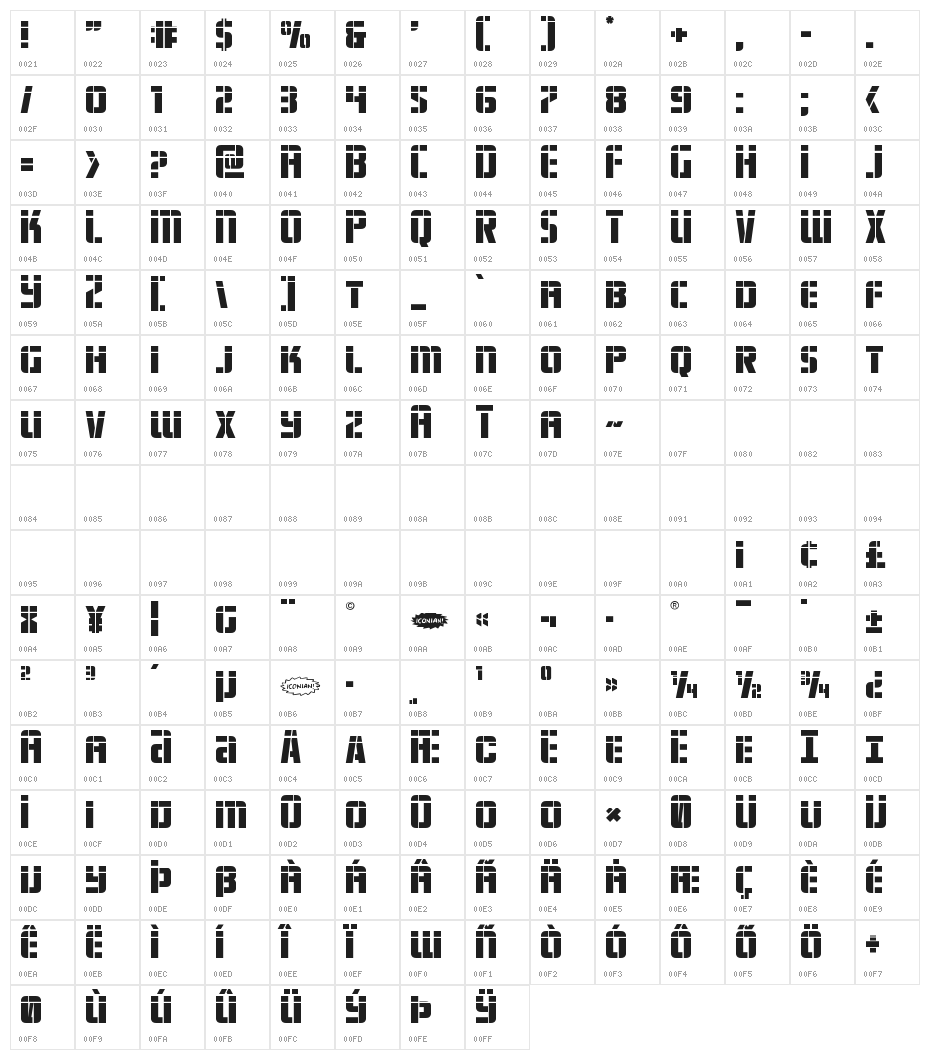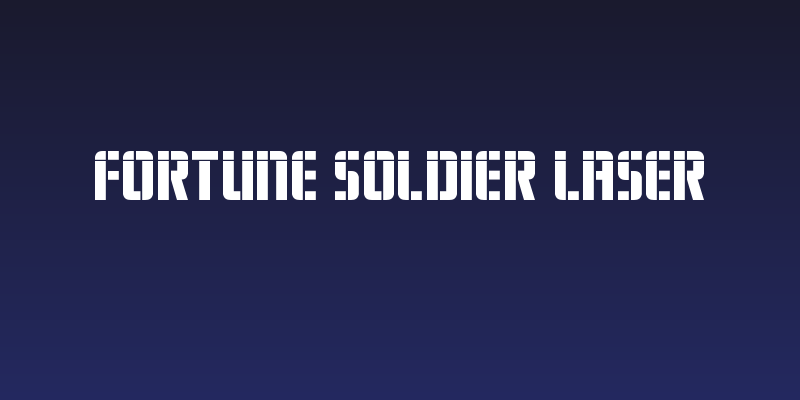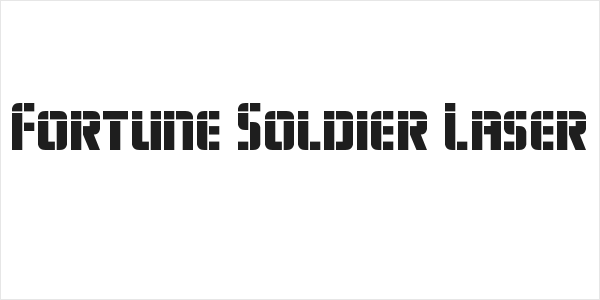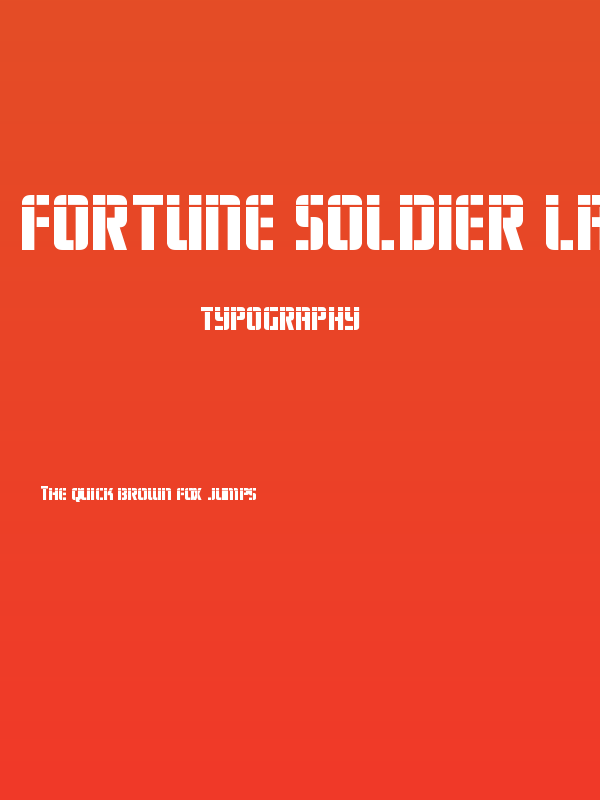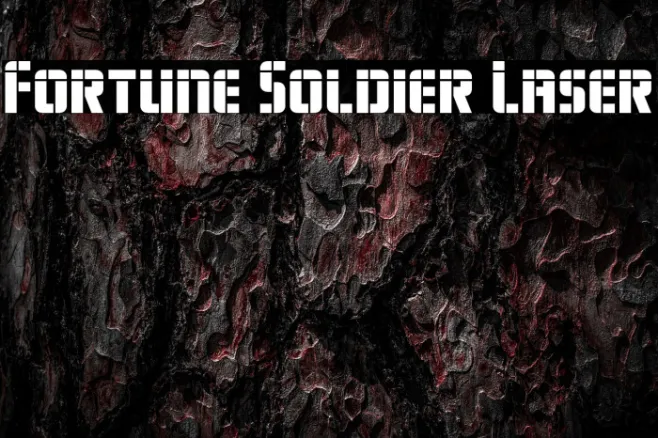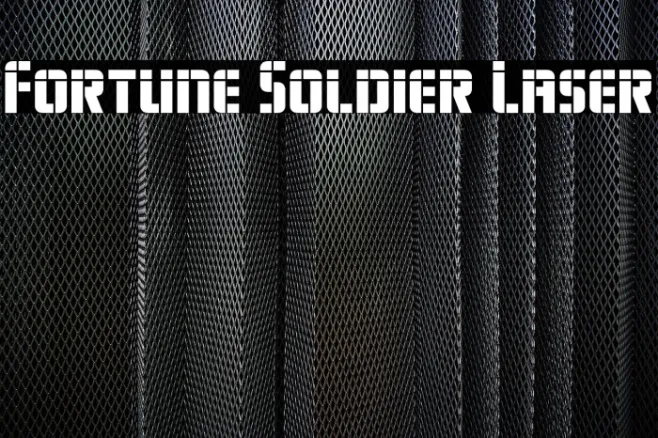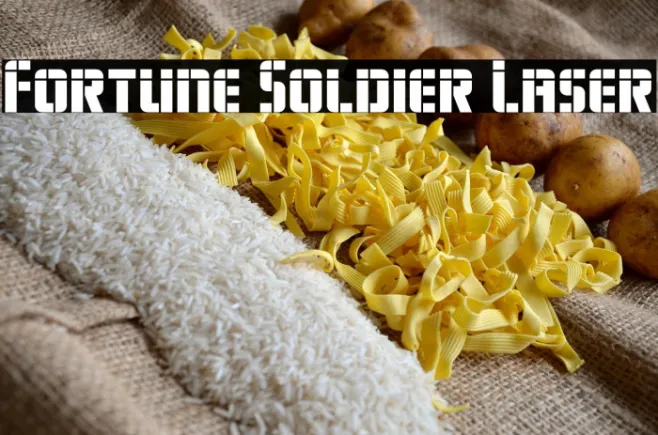
Fortune Soldier Laser Font
Fortune Soldier Laser Description
This font features a bold, geometric design with a stencil-like appearance, characterized by its blocky and angular letterforms. The uppercase and lowercase letters share a uniform height, creating a cohesive and structured look. The font's design incorporates sharp edges and straight lines, giving it a modern and industrial feel. The characters are evenly spaced, providing a balanced and clean appearance. This font is highly legible and makes a strong visual impact, suitable for various design applications.